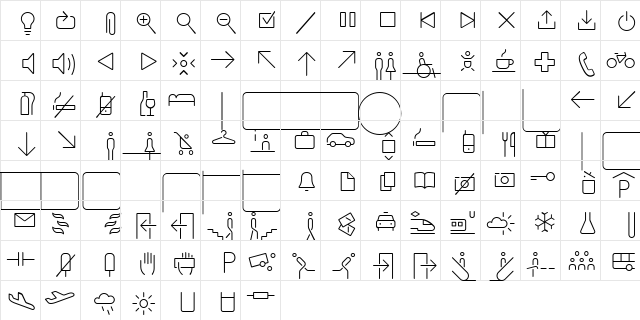
NettoIcons Light
Light · Daniel Utz published by FSI FontShop International GmbH  ·
Design Context for NettoIcons Typeface
NettoIcons is a composed and adaptable typeface that performs quietly and consistently across a wide range of design contexts. The delicate stroke weight brings airiness and refinement to layouts.